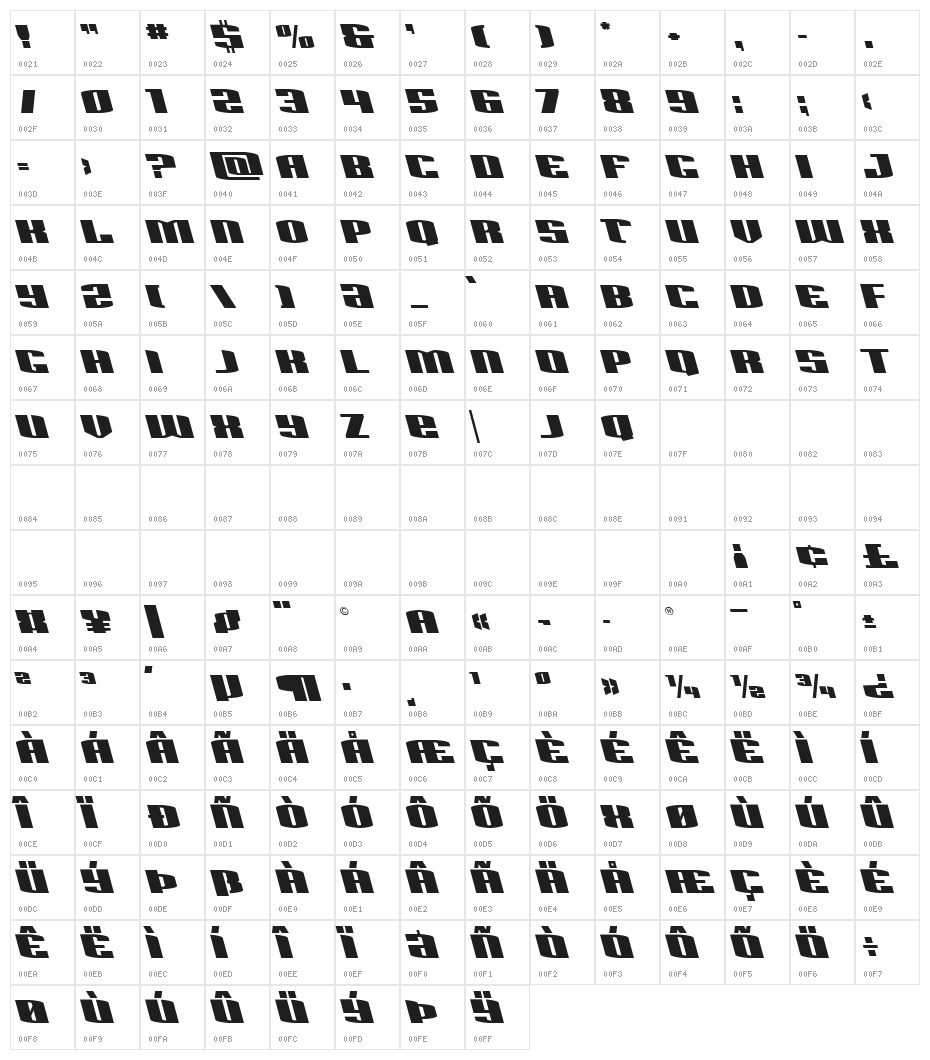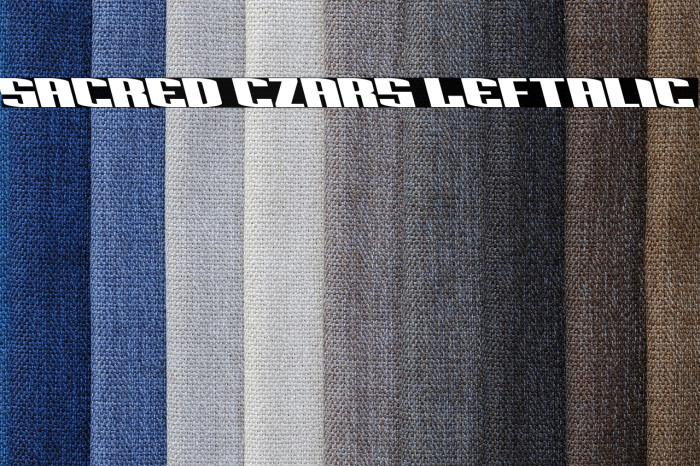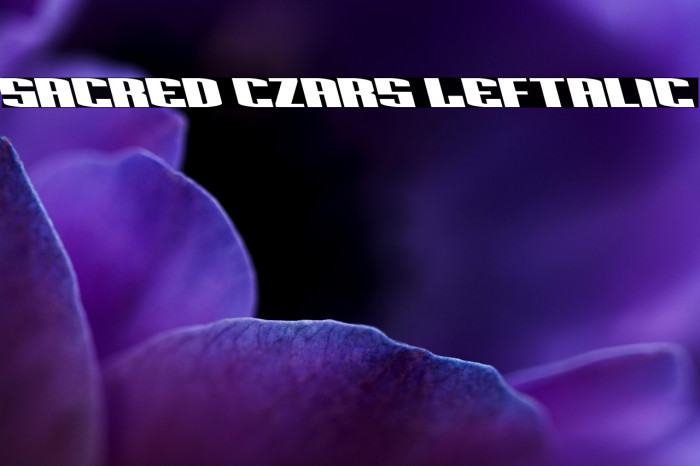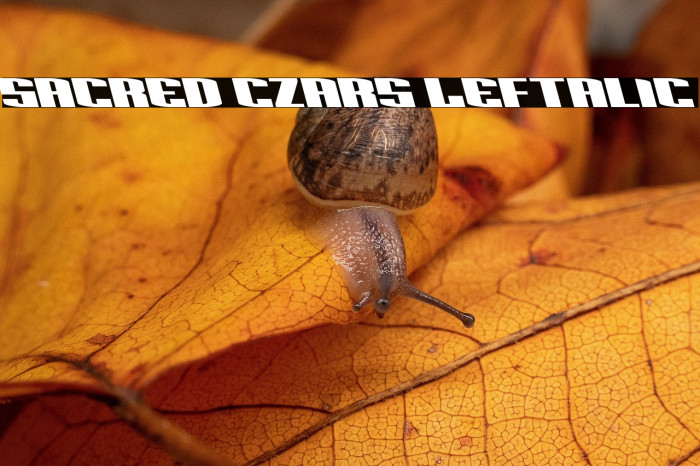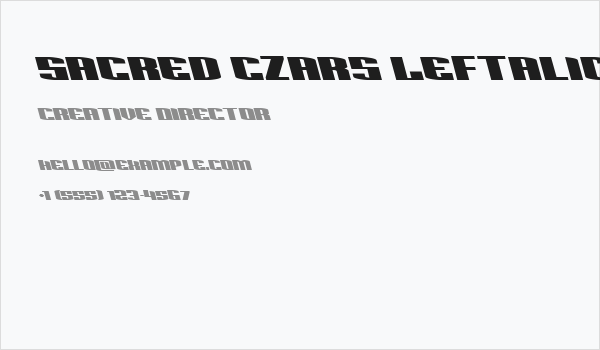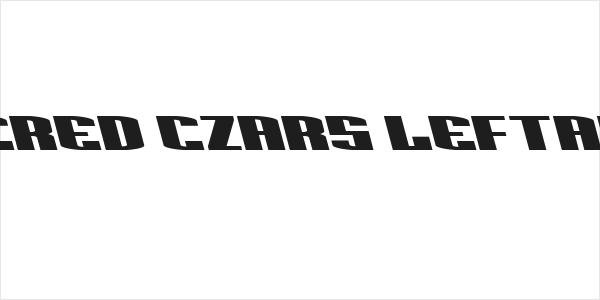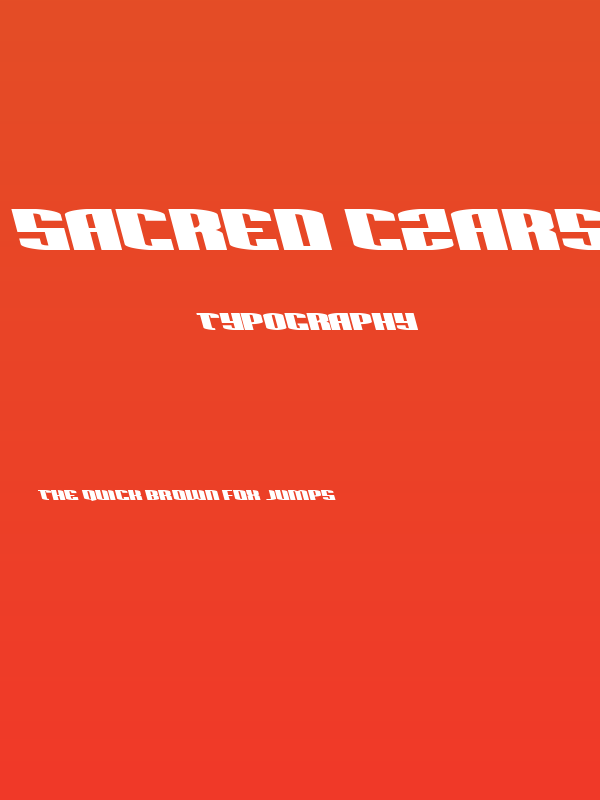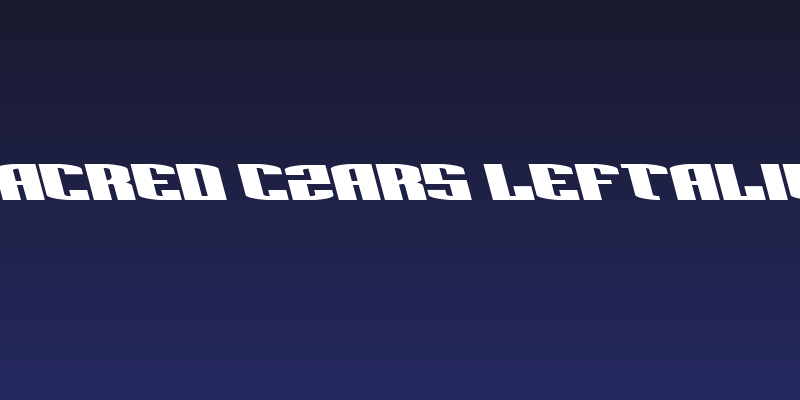
Sacred Czars Leftalic Font
Sacred Czars Leftalic Description
This font features a bold and dynamic style with a distinct leftward slant, giving it a sense of movement and energy. The characters are wide and blocky, with sharp angles and a strong presence. The uppercase and lowercase letters maintain a consistent weight, contributing to a cohesive look. The numbers and special characters follow the same bold and angular design, ensuring uniformity across all glyphs. This font's striking appearance makes it suitable for attention-grabbing designs.
| Proposed Projects | Ideal for posters, logos, and branding materials that require a bold and energetic look. |